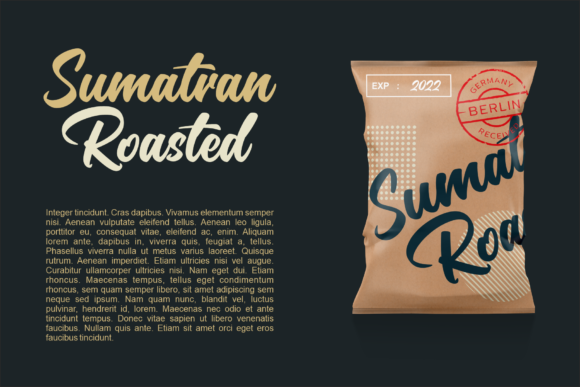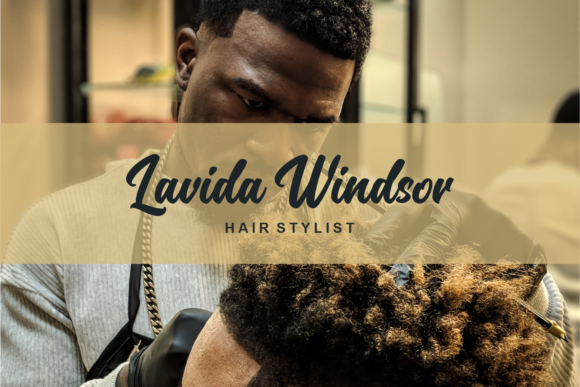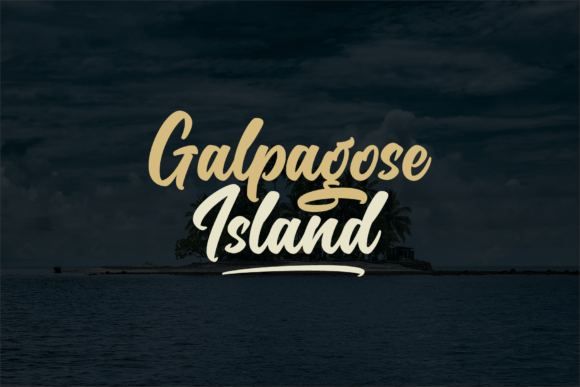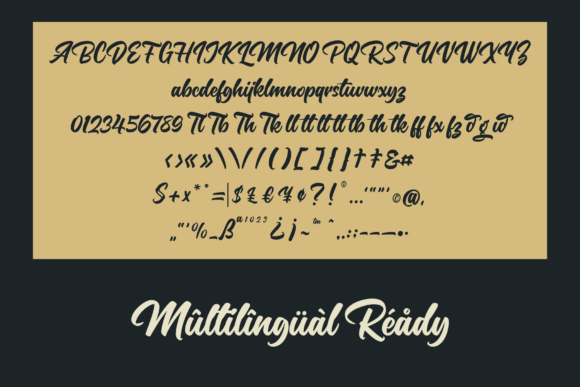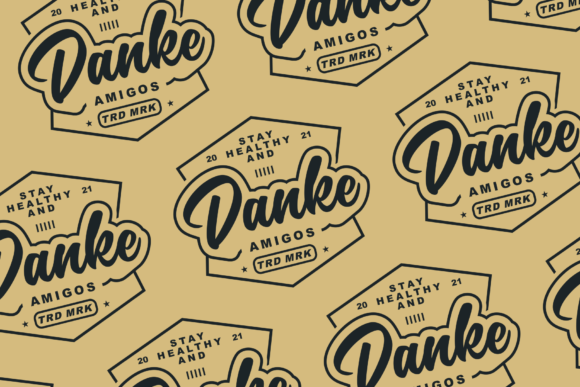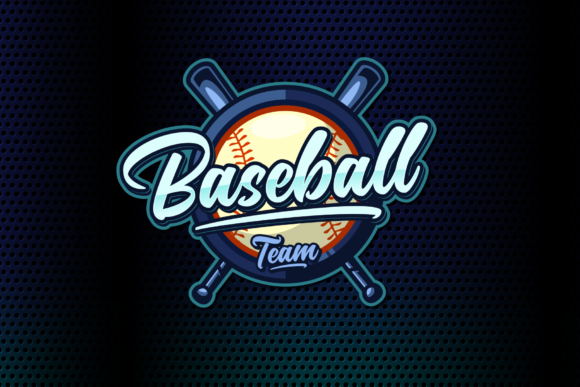
Introducing Chairville Font: The Ultimate Retro-Styled Bold Handwritten Font
Are you tired of using the same old fonts for your design projects? Look no further than Chairville Font, a stunning, retro-styled bold handwritten font that’s sure to add a touch of nostalgia and style to your work. Crafted with care and attention to detail, Chairville is the perfect choice for designers and crafters looking to give their headlines and logotype projects a confident and dynamic edge.
The Charm of Chairville Font
Chairville Font is a gorgeous, one-of-a-kind font that’s been carefully crafted to bring a sense of nostalgia and charm to your designs. With its bold, handwritten style, this font reads as strong, confident, and dynamic, making it perfect for a wide range of design projects, from logos and headlines to posters and packaging.
One of the standout features of Chairville Font is its retro aesthetic. This font takes inspiration from the classic fonts of the past, but with a modern twist that makes it perfect for contemporary designs. Whether you’re looking to create a vintage-inspired look or simply want to add a touch of personality to your work, Chairville Font is the perfect choice.
Key Features of Chairville Font
So what makes Chairville Font so special? Here are just a few of the key features that set this font apart:
- Retro-styled design: Chairville Font takes inspiration from the classic fonts of the past, but with a modern twist that makes it perfect for contemporary designs.
- Bold and confident: This font reads as strong, confident, and dynamic, making it perfect for headlines and logotype projects.
- Handwritten style: Chairville Font has a unique, handwritten style that’s perfect for adding a touch of personality to your designs.
- Nostalgic character: This font has a nostalgic charm that’s sure to add a touch of warmth and character to your designs.
Uses for Chairville Font
So what can you use Chairville Font for? The possibilities are endless! Here are just a few ideas to get you started:
- Logos and branding: Chairville Font is perfect for creating unique and memorable logos that will help your brand stand out.
- Headlines and titles: This font is ideal for use in headlines and titles, where its bold and confident style can really make an impact.
- Posters and flyers: Chairville Font is perfect for use in posters and flyers, where its retro aesthetic and nostalgic charm can really shine.
- Packaging and product design: This font is also great for use in packaging and product design, where its unique style can help your product stand out on store shelves.
Why Choose Chairville Font?
So why should you choose Chairville Font for your design projects? Here are just a few reasons why this font stands out:
- Unique and distinctive: Chairville Font is a one-of-a-kind font that’s sure to help your designs stand out.
- High-quality design: This font has been carefully crafted with attention to detail, ensuring a high-quality design that’s perfect for professional projects.
- Versatile: This font can be used for a wide range of design projects, from logos and headlines to posters and packaging.
In conclusion, Chairville Font is a stunning, retro-styled bold handwritten font that’s perfect for designers and crafters looking to add a touch of nostalgia and style to their work. With its unique and distinctive design, high-quality craftsmanship, and versatility, this font is sure to become a go-to choice for a wide range of design projects. So why wait? Download Chairville Font today and start creating stunning designs that will leave a lasting impression!